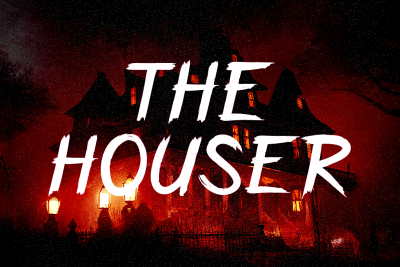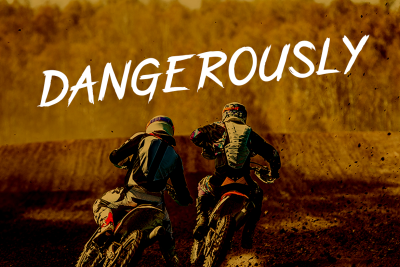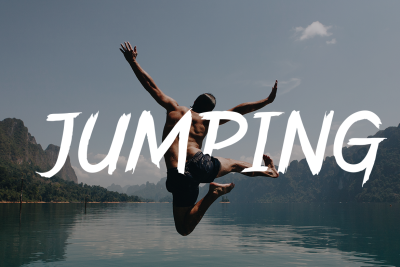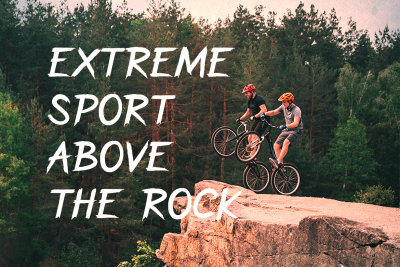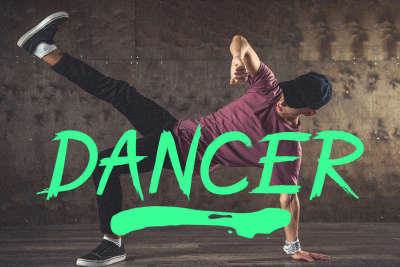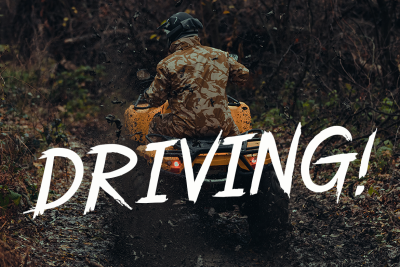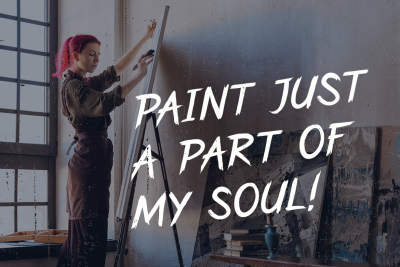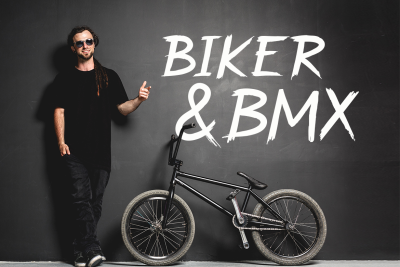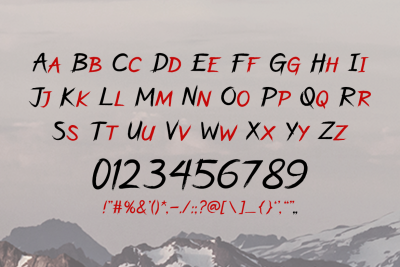
Graffiti font Danger Zone is a bold and edgy typeface that adds intense energy to any design. Inspired by the raw aesthetics of street art, this font combines sharp lines with rugged textures to create a powerful look. Additionally, the red and white contrast adds urgency and drama, making it perfect for designs that need instant impact. Danger Zone embodies the rebellious spirit of graffiti with its hand-drawn, chaotic strokes, giving projects an authentic street vibe. This font works well for striking titles, posters, and logos that convey a tough, no-nonsense style. Its expressive design ensures your message stands out in any medium.
Furthermore, the fontโs unique look merges energy with readability, allowing it to remain clear and impactful. Danger Zoneโs brush-like strokes mimic the motion and spontaneity of graffiti, adding a lively, expressive feel to your text. As a result, this font enhances projects that communicate excitement, adventure, or risk. Whether in print or digital formats, Danger Zone leaves a memorable impression with its intensity and personality.
Graffiti font Danger Zone Perfect for
Danger Zone suits graphic designers, social media managers, and creatives who work with adventurous brands. Its graffiti-inspired style resonates with bold, energetic audiences, especially in sports, music, and streetwear fashion. Designers can use Danger Zone effectively for posters, event flyers, branding materials, and product packaging that demand a gritty look. Moreover, its dynamic design also works well for titles in video games, extreme sports, and movie posters that convey intensity and excitement.
Additionally, independent creators, like YouTubers, bloggers, and influencers, will find Danger Zone useful for adding flair to their content. This font enhances banners, thumbnails, and social media posts that need strong visual impact. For anyone seeking a thrilling, edgy style in their designs, Danger Zone is the perfect choice. Its powerful presence ensures your message isnโt just seenโitโs truly felt.